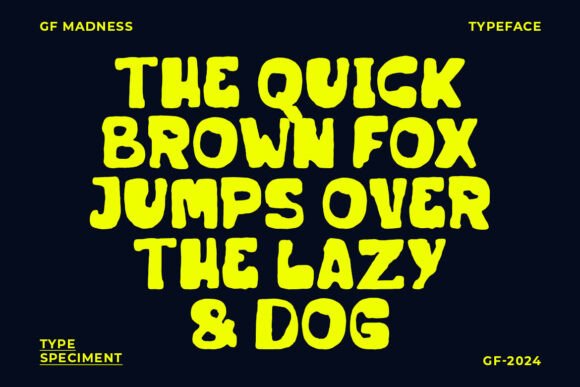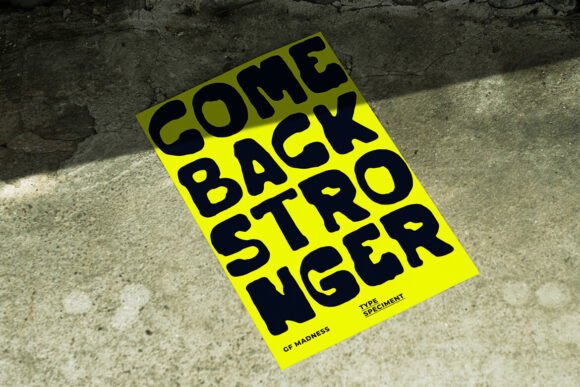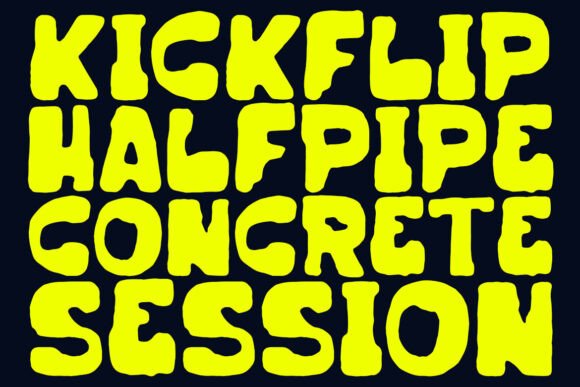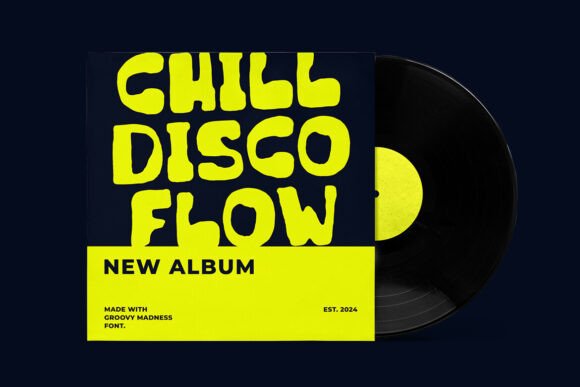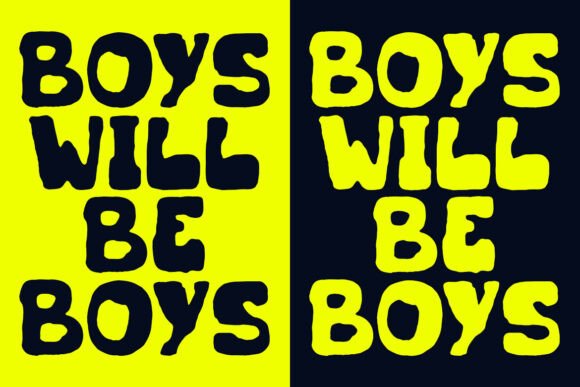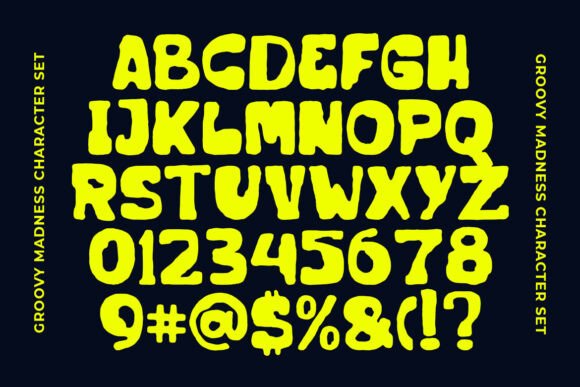
Unleash Your Creativity with Groovy Madness Font
Are you tired of using the same old fonts in your designs? Do you want to add a touch of boldness and attitude to your projects? Look no further than the Groovy Madness Font! This hand-drawn display font is perfect for designers and crafters who want to add an edgy flair to their work.
What is Groovy Madness Font?
Groovy Madness is a unique and unconventional font that exudes a rough and bold aesthetic. With its distinctive street style, this font is perfect for projects that call for a rebellious or urban vibe. Whether you’re designing a logo, creating a poster, or crafting a social media graphic, Groovy Madness is sure to make your design stand out.
Characteristics of Groovy Madness Font
So, what makes Groovy Madness Font so special? Here are just a few of its key characteristics:
- Hand-drawn design: Groovy Madness is a hand-drawn font, which gives it a unique and authentic look.
- Bold and edgy aesthetic: This font is perfect for designers who want to add a touch of boldness and attitude to their work.
- Street style: Groovy Madness has a distinctive street style that is perfect for urban-inspired designs.
- Rebellious vibe: This font is perfect for projects that call for a rebellious or edgy vibe.
Uses for Groovy Madness Font
Groovy Madness Font is perfect for a wide range of design projects, including:
- Logos and branding: Add a touch of boldness and attitude to your logo and branding with Groovy Madness.
- Posters and flyers: Create eye-catching posters and flyers with this unique and unconventional font.
- Social media graphics: Add a touch of edginess to your social media graphics with Groovy Madness.
- T-shirts and apparel: Create bold and eye-catching designs for t-shirts and apparel with this font.
Why Choose Groovy Madness Font?
So, why should you choose Groovy Madness Font for your next design project? Here are just a few reasons:
- Unique and authentic look: Groovy Madness has a unique and authentic look that will make your design stand out.
- High-quality design: Groovy Madness is a high-quality font that is designed to look great in any design.
Tips for Using Groovy Madness Font
Here are a few tips for using Groovy Madness Font in your design projects:
- Use it sparingly: Because Groovy Madness is a bold font, it’s best to use it sparingly to avoid overwhelming your design.
- Pair it with other fonts: Pair Groovy Madness with other fonts to create a unique and interesting contrast.
- Experiment with different colors: Experiment with different colors to find the perfect look for your design.
- Have fun: Most importantly, have fun and be creative with Groovy Madness Font!
In conclusion, Groovy Madness Font is a unique and unconventional font that is perfect for designers and crafters who want to add a touch of boldness and attitude to their work. With its distinctive street style and hand-drawn design, this font is sure to make your design stand out. Whether you’re designing a logo, creating a poster, or crafting a social media graphic, Groovy Madness is the perfect choice. So why wait? Download Groovy Madness Font today and unleash your creativity!